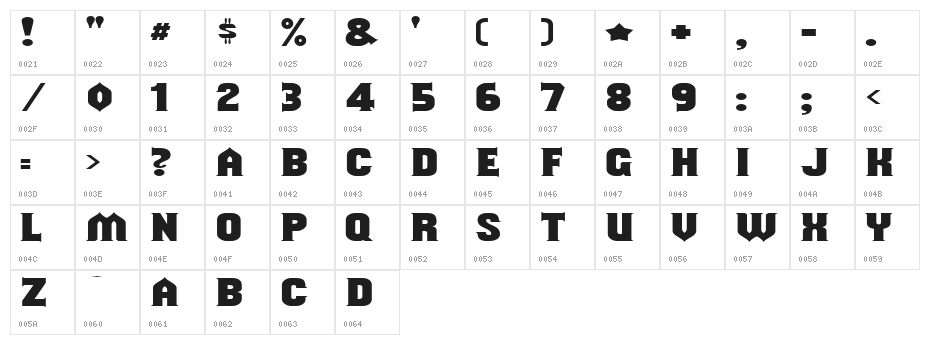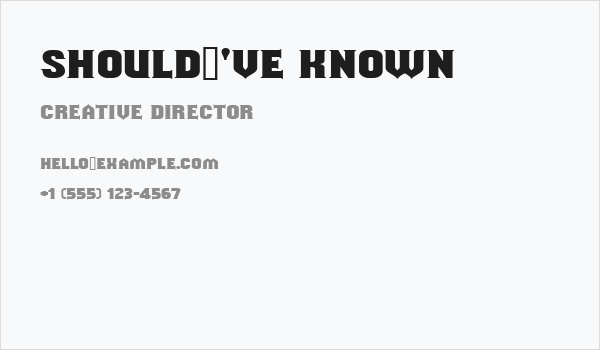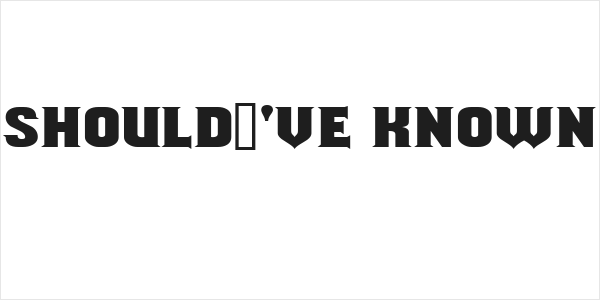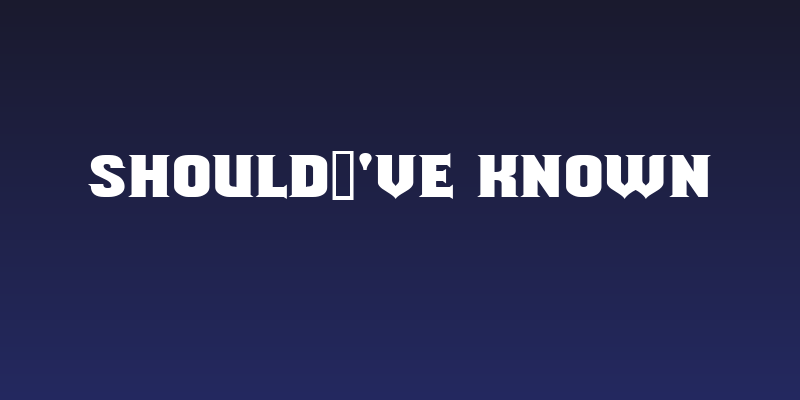
Should've Known Font
Should've Known Description
This font features a bold and striking design with a strong presence. The characters are crafted with sharp, angular edges and a distinct geometric style, giving them a modern and edgy appearance. The uppercase letters are particularly prominent, with a uniform height and width that create a cohesive look. The numerals and special characters maintain the same boldness, ensuring consistency across all elements. This font is well-suited for making a statement, with its eye-catching and powerful aesthetic.
| Proposed Projects | Ideal for branding, posters, headlines, and any design project that requires a strong visual impact. |